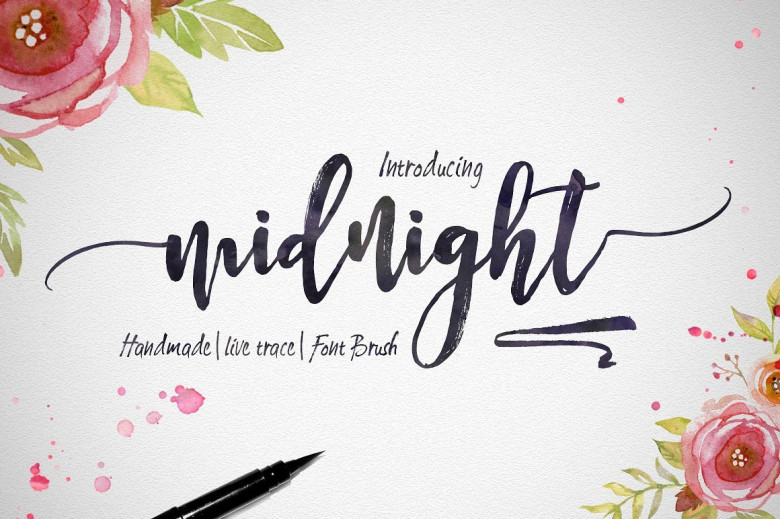
Midnight Script Font
Midnight is the font style handmade dancing and then live trace to have Grungy brush and unique forms of calligraphy, the writing style is very natural.